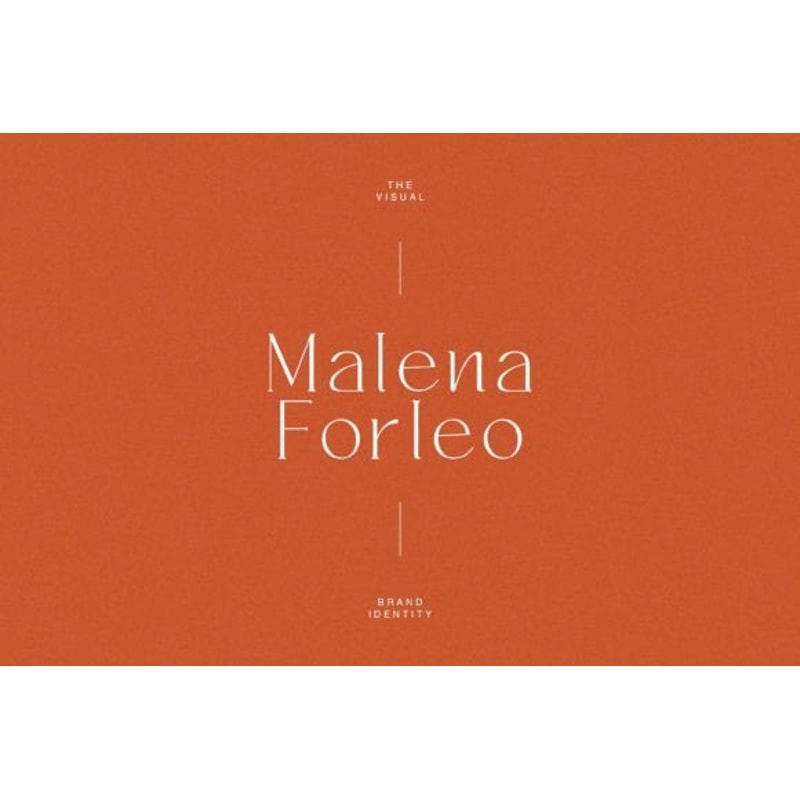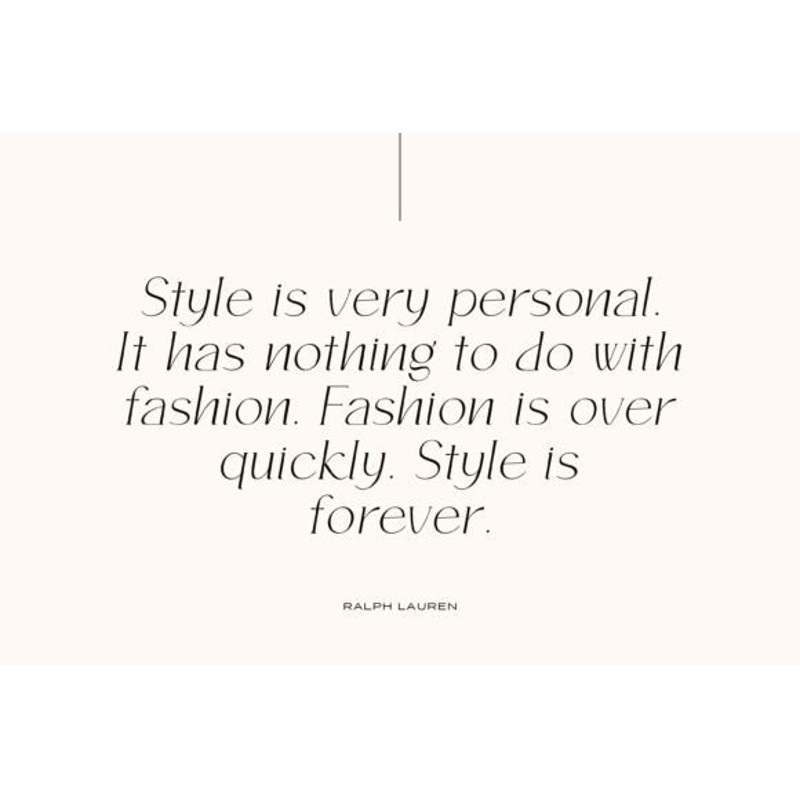
The Dreamer Font
The Dreamer is a chic display font that effortlessly blends elegance with a touch of whimsy. With graceful curves and a stylish flair, it brings a dreamy and sophisticated vibe to your designs. Ideal for headings, invitations, or any project where a touch of chic charm is desired, The Dreamer adds a dash of sophistication with a hint of fantasy. Elevate your visual creations with this effortlessly stylish font.